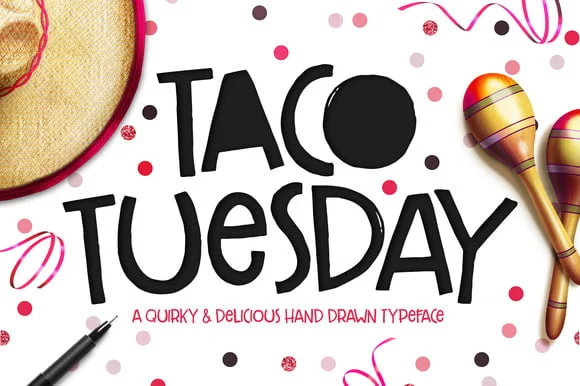
Taco Tuesday Font
Taco Tuesday Font is perfect for Mexican restaurant branding, food truck designs, taco shop logos, festive menu designs, Tex-Mex packaging, fun food marketing, party invitations, casual dining promotions, food festival graphics, social media food content, restaurant signage, and any design project requiring a playful and appetizing aesthetic with cultural flair.
What makes Taco Tuesday Font exciting is its vibrant personality that captures the festive spirit and delicious appeal of Mexican cuisine culture. The font's playful letterforms evoke feelings of celebration and fun, making it ideal for food brands wanting to create a welcoming and energetic atmosphere. Its cheerful character instantly communicates flavor and enjoyment, helping restaurants and food businesses connect with customers looking for authentic and entertaining dining experiences.
The Taco Tuesday Font family typically includes uppercase and lowercase characters, numerals, punctuation marks, and festive decorative elements that enhance its culinary appeal.